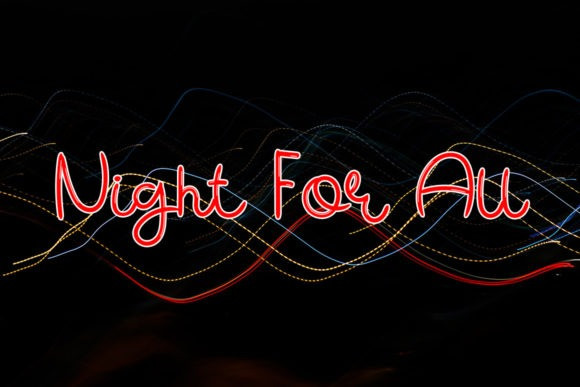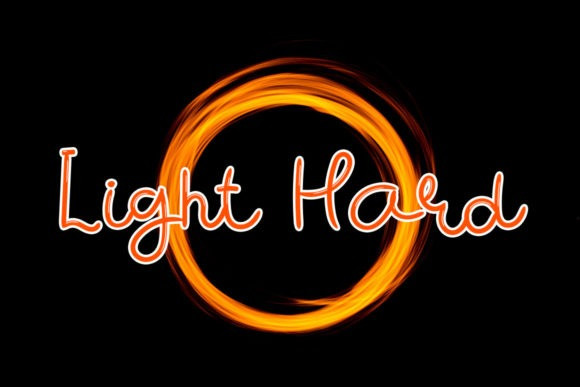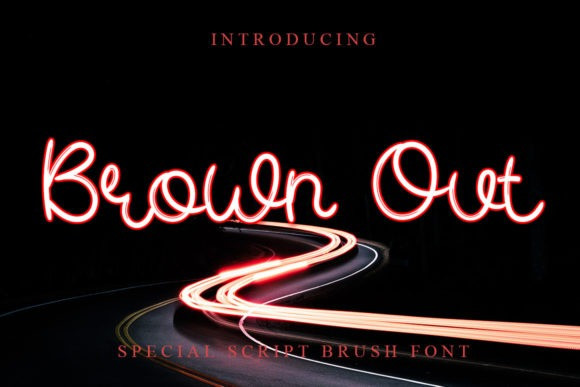
Brown Out Font
Brown Out Script Font is a lovely and brushed script font that exudes elegance and class. This font was particularly crafted for those who need a beautiful and refreshing look to their designs.